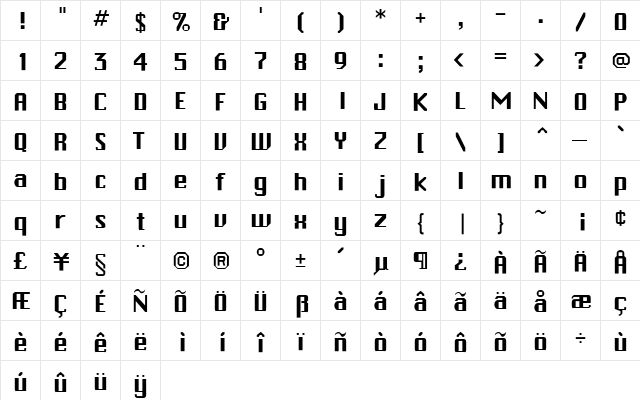
RSChiTown Regular
Design Context for RSChiTown Typeface
RSChiTown offers clean, dependable letterforms without strong stylistic allegiance, making it a practical choice for designers who need flexibility.